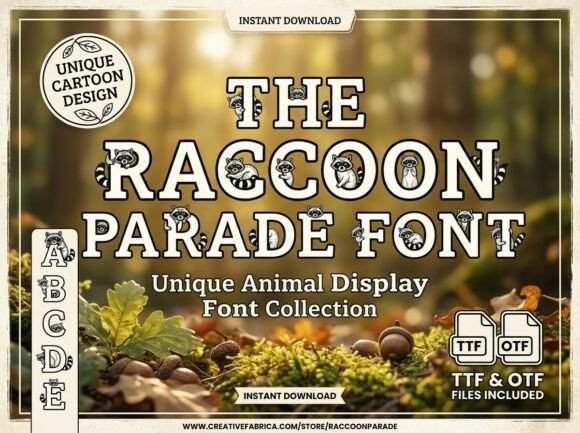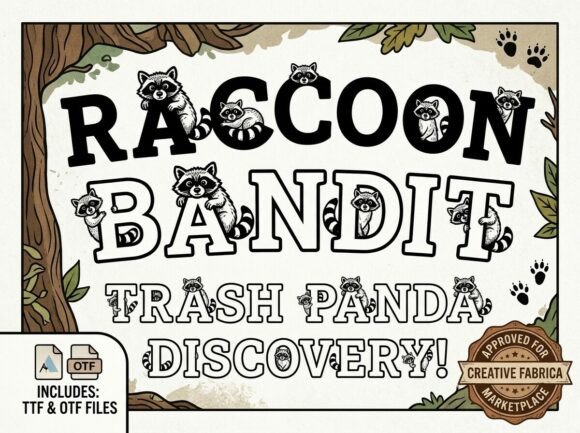
Introducing Ezra Raccoon: The Playful Display Font for Creative Projects
Are you looking for a unique and charming font to add a touch of whimsy to your creative projects? Look no further than Ezra Raccoon, a hand-drawn display font that is sure to delight. With its bold, clean-lined slab-serif letterforms and playful raccoon illustrations, Ezra Raccoon radiates charm and curiosity, making it the perfect choice for a variety of design applications.
A Font that Combines Bold Typography with Whimsical Illustrations
Ezra Raccoon is a one-of-a-kind typeface that features bold, clean-lined slab-serif letterforms that are playfully interacted with by detailed raccoon illustrations. The raccoons are depicted hiding behind stems, peeking through counters, and wrapping their striped tails around the glyphs, adding a touch of mischief and playfulness to the font. The combination of bold typography and whimsical illustrations makes Ezra Raccoon a high-impact font that is sure to grab attention.
Perfect for Independent Toy Brand Identities and Children’s Book Titles
Ezra Raccoon’s unique blend of bold typography and playful illustrations makes it the premier choice for independent toy brand identities, nursery decor, children’s book titles, and high-energy “nature-vlogger” social media headers. The font’s “backyard-explorer” energy and charm are sure to appeal to parents and children alike, making it a great choice for any design project aimed at kids.
Key Features of Ezra Raccoon
- Hand-drawn display font: Ezra Raccoon is a carefully crafted, hand-drawn font that features unique and playful illustrations.
- Bold, clean-lined slab-serif letterforms: The font’s bold typography provides a clean and modern contrast to the playful illustrations.
- Detailed raccoon illustrations: The raccoons in Ezra Raccoon are intricately designed, with detailed illustrations that add a touch of whimsy to the font.
- High-impact illustrative silhouettes: The font’s illustrations are designed to make a big impact, making Ezra Raccoon perfect for headlines and titles.
- “Backyard-explorer” energy: Ezra Raccoon’s playful and curious illustrations evoke the sense of adventure and exploration that comes with exploring the great outdoors.
Design Applications for Ezra Raccoon
Ezra Raccoon is a versatile font that can be used in a variety of design applications, including:
- Independent toy brand identities: Ezra Raccoon’s playful and charming illustrations make it a great choice for toy brand logos and packaging.
- Nursery decor: The font’s whimsical illustrations and bold typography make it perfect for nursery decor, including wall art and furniture design.
- Children’s book titles: Ezra Raccoon’s high-impact illustrations and playful energy make it a great choice for children’s book titles and cover design.
- Social media headers: The font’s bold typography and illustrative silhouettes make it perfect for high-energy social media headers, particularly for “nature-vlogger” and outdoor enthusiasts.
Why Choose Ezra Raccoon?
Ezra Raccoon is a unique and charming font that offers a range of benefits for designers and crafters, including:
- Instant recognition: The font’s bold typography and playful illustrations make it instantly recognizable and memorable.
- Emotional connection: Ezra Raccoon’s whimsical illustrations and charming energy help to create an emotional connection with audiences, particularly children and parents.
- Flexibility: The font’s versatility makes it suitable for a range of design applications, from branding and packaging to nursery decor and children’s book titles.
| Font Name | Ezra Font |
| Author | pavel |
Ezra Raccoon is a hand-drawn display font that is sure to add a touch of whimsy and charm to your creative projects. With its bold typography, playful illustrations, and high-impact illustrative silhouettes, Ezra Raccoon is the perfect choice for designers and crafters looking to create engaging and memorable designs. Whether you’re working on an independent toy brand identity, nursery decor, children’s book titles, or social media headers, Ezra Raccoon is a great choice for any design project that requires a playful and charming font.